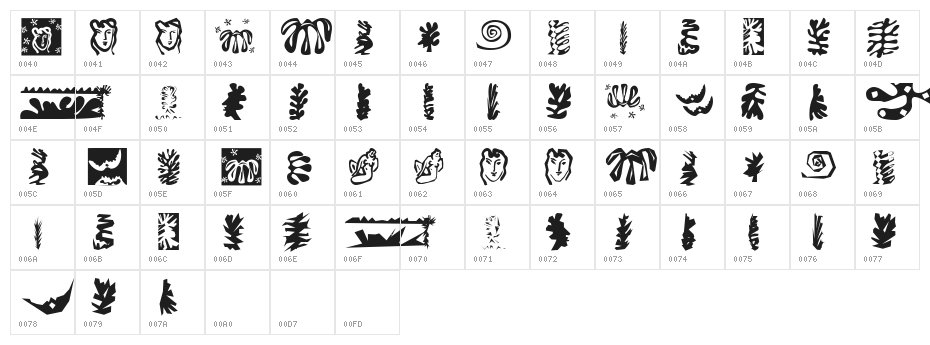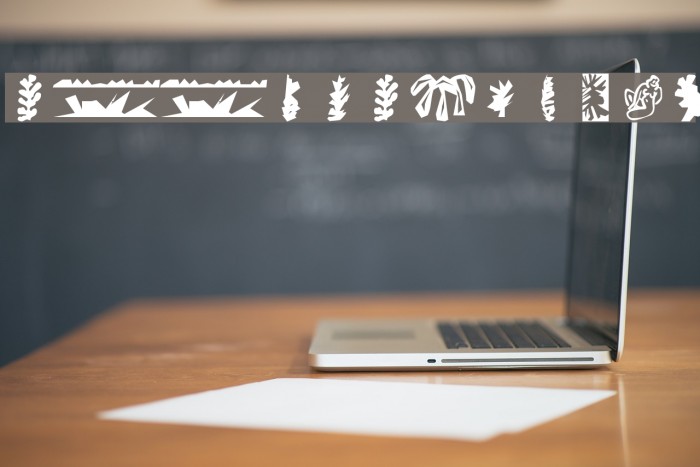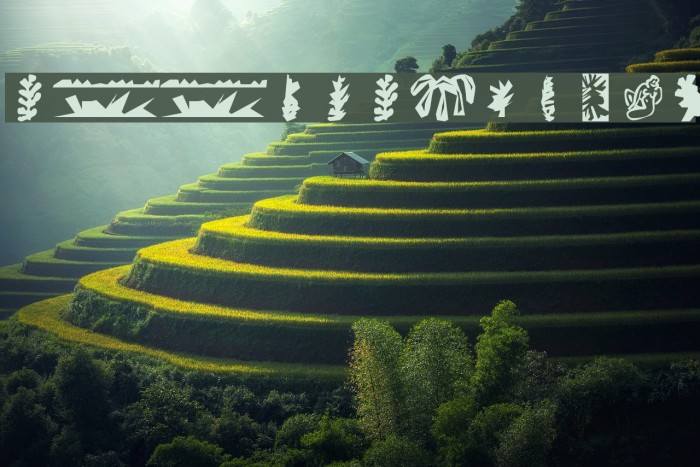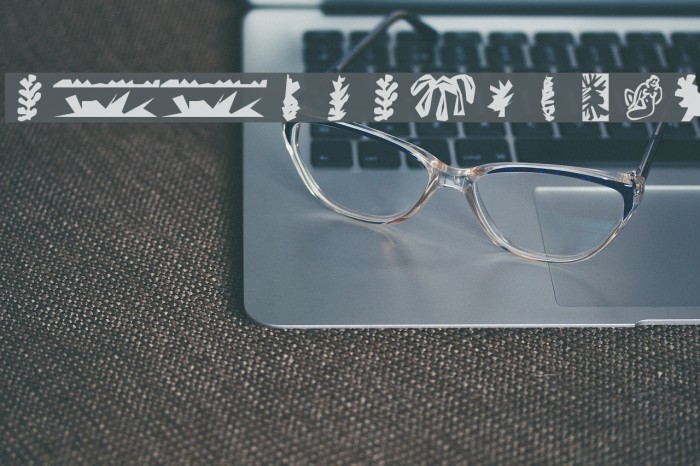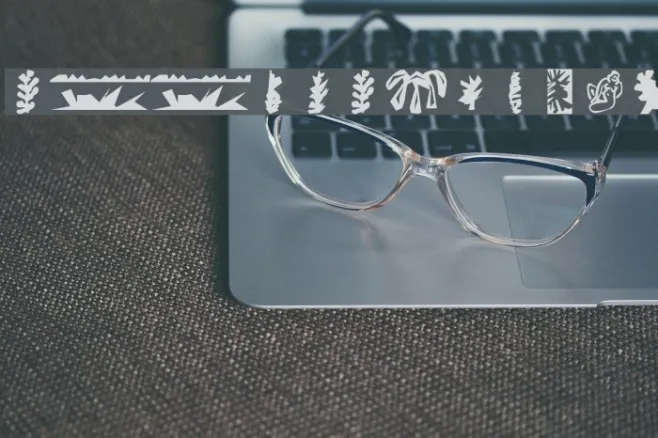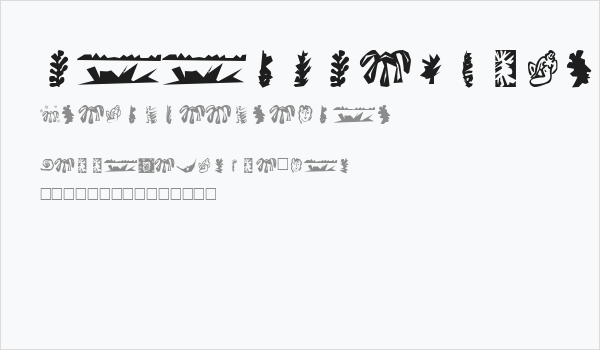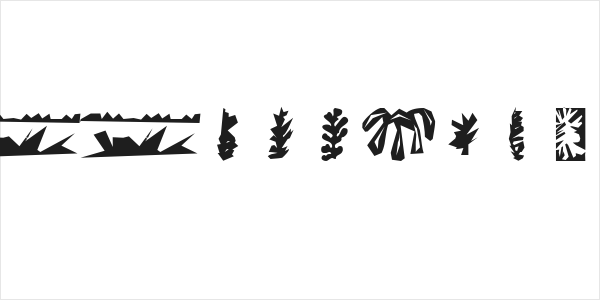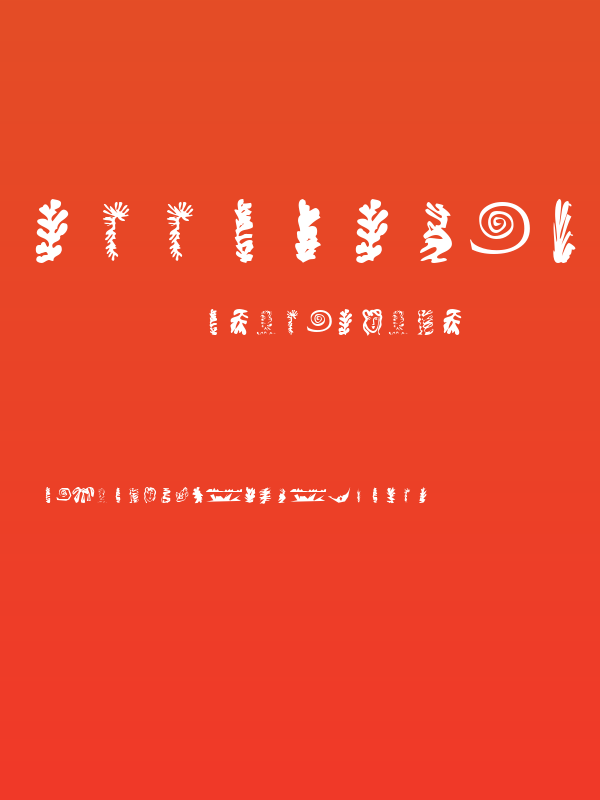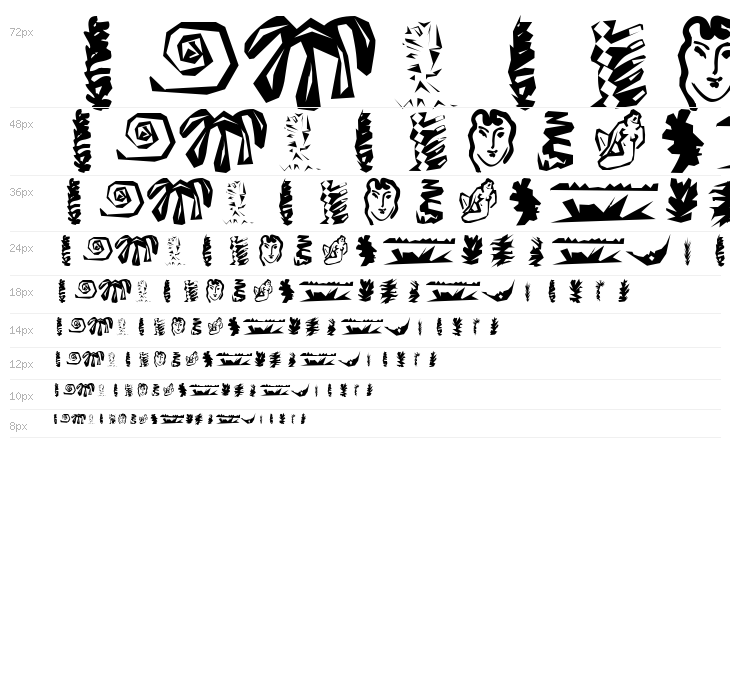
Roots Regular Font
Roots Regular Description
This font features a highly decorative and artistic style, characterized by abstract and organic shapes that resemble elements of nature, such as leaves and plants. The characters are not traditional letters but rather intricate designs that evoke a sense of creativity and uniqueness. Each symbol is distinct, with bold, flowing lines and a playful, whimsical aesthetic. The font is visually striking and captures attention with its unconventional forms, making it ideal for artistic and creative projects that require a touch of nature-inspired elegance.
| Use Case | Logos, Posters, Art projects |
| Proposed Projects | Ideal for art projects, nature-themed designs, creative branding, and decorative posters. |